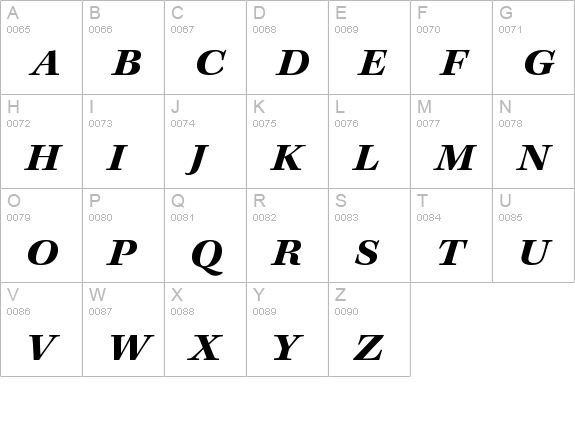
Kepler Std Bold Extended Italic Font Details
Kepler Std Bold Extended Italic is a strong, high-contrast, extended-width, italic variant in the Kepler typeface family \xE2\x80\x94 well suited to headlines, attention-grabbing titles, and strong calls-to-action.
Kepler Std Bold Extended Italic is a remarkable font that embodies elegance and boldness. With its elongated and slanted letterforms, this font exudes a sense of sophistication and modernity. The strong and pronounced strokes of Kepler Std Bold Extended Italic make it ideal for creating impactful headlines, eye-catching titles, and captivating design projects. This font's versatility allows it to seamlessly blend into various design styles, from contemporary to classic, making it a valuable asset for graphic designers, advertisers, and creative professionals. Its expressive and dynamic appearance adds a touch of uniqueness to any composition, effortlessly capturing attention and leaving a lasting impression. What's even more exciting is that Kepler Std Bold Extended Italic is available for free download at FontsMarket.com. This means that you can easily access this exceptional font without any cost, allowing you to enhance your creative endeavors without breaking the bank. Whether you're working on branding, packaging, editorial design, or web design, Kepler Std Bold Extended Italic is a font that will elevate your projects to new heights. Its boldness, extended proportions, and italicized style create a visually appealing and impactful typography experience that is sure to captivate your audience. Don't miss out on the opportunity to enhance your designs with Kepler Std Bold Extended Italic. Download it for free at FontsMarket.com and unlock a world of creativity and endless possibilities.